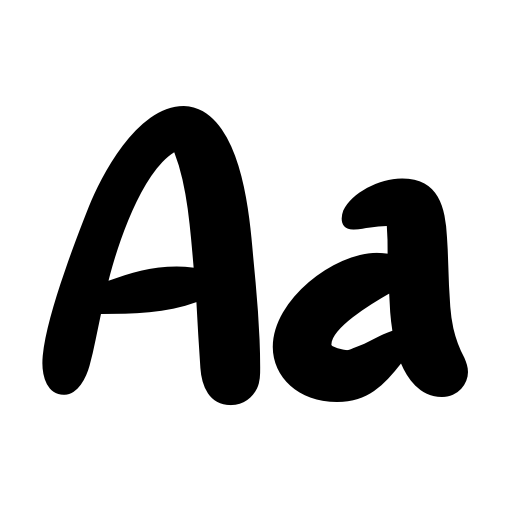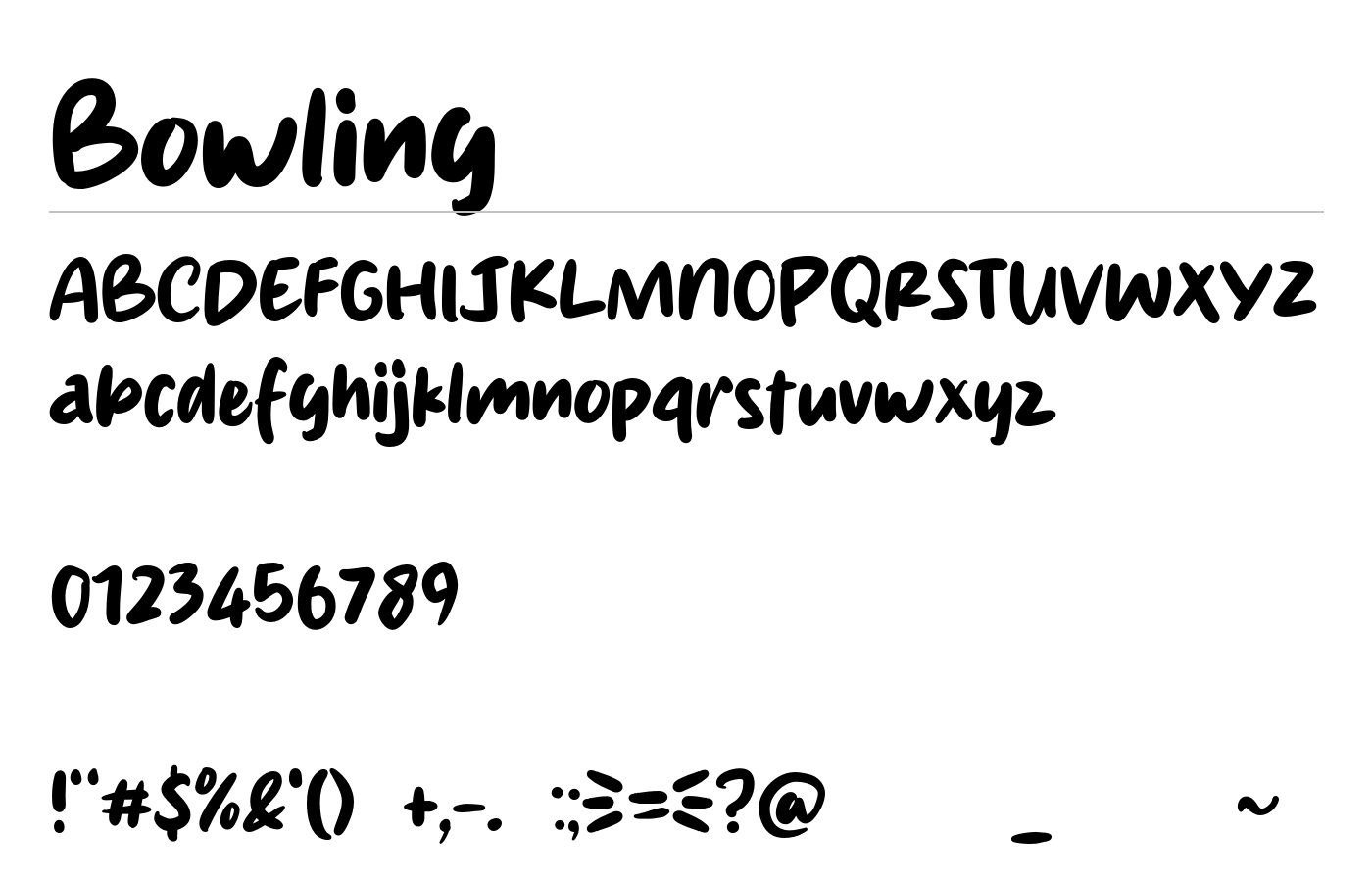
Bowling Font is a casual, handwritten-style sans serif typeface with a bold and playful personality. Its thick, rounded strokes and slightly irregular forms give it a friendly and approachable feel, making it ideal for informal designs like children’s products, casual branding, and fun event promotions. This font works well in headlines and logos where a lively, energetic touch is needed.
Bowling Font
About Bowling Font
| Font family | Bowling Font |